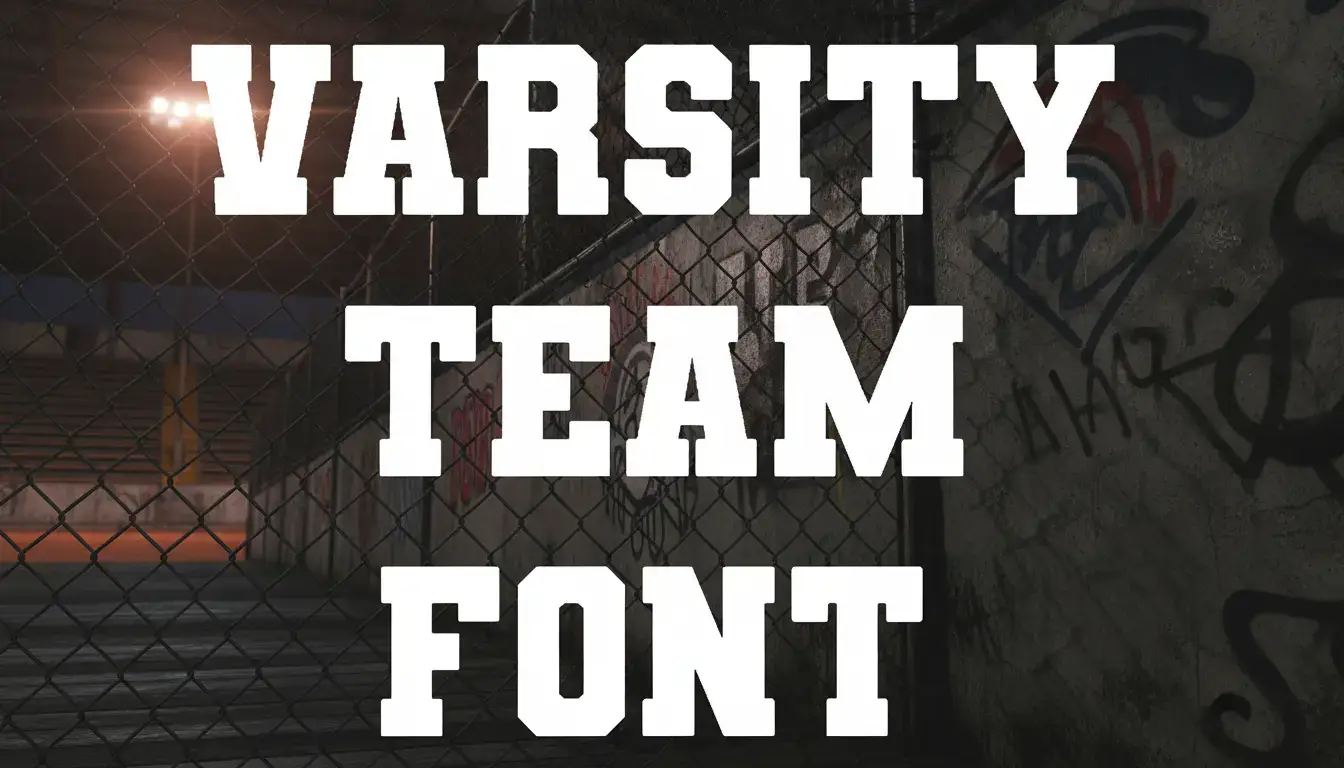
Varsity Team Font
Varsity Team Font Preview
Varsity Team
Varsity Team is an old school font designed by Juan Miguel Castillo and published by Don Marciano. Its letters look like they came off an old sign or a vintage product label. You can download it for free and test it with your own words in the preview above.
What You Can Type With Varsity Team
You get every letter from A to Z in both cases and all the numbers from 0 to 9, which means Varsity Team can handle full sentences, dates and prices. Common punctuation such as &, !, ? and @ is included as well. It also has the accented letters you need for Spanish, French, German, Portuguese and Italian.
Where Varsity Team Works Best
Designers usually reach for fonts like Varsity Team when they're making vintage signs, barber shop logos and retro labels. Put it on an off-white or kraft-paper background and it instantly looks older.
Does Varsity Team support accented letters?
Yes. Varsity Team includes the accented letters needed for Spanish, French, German, Portuguese and Italian, so it works for more than just English.
What fonts pair well with Varsity Team?
It pairs nicely with a classic serif or a condensed sans serif for the supporting lines.